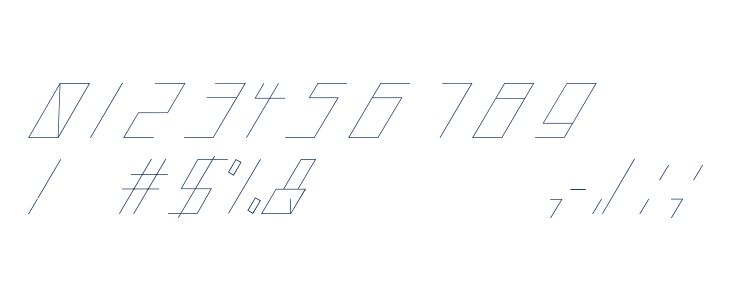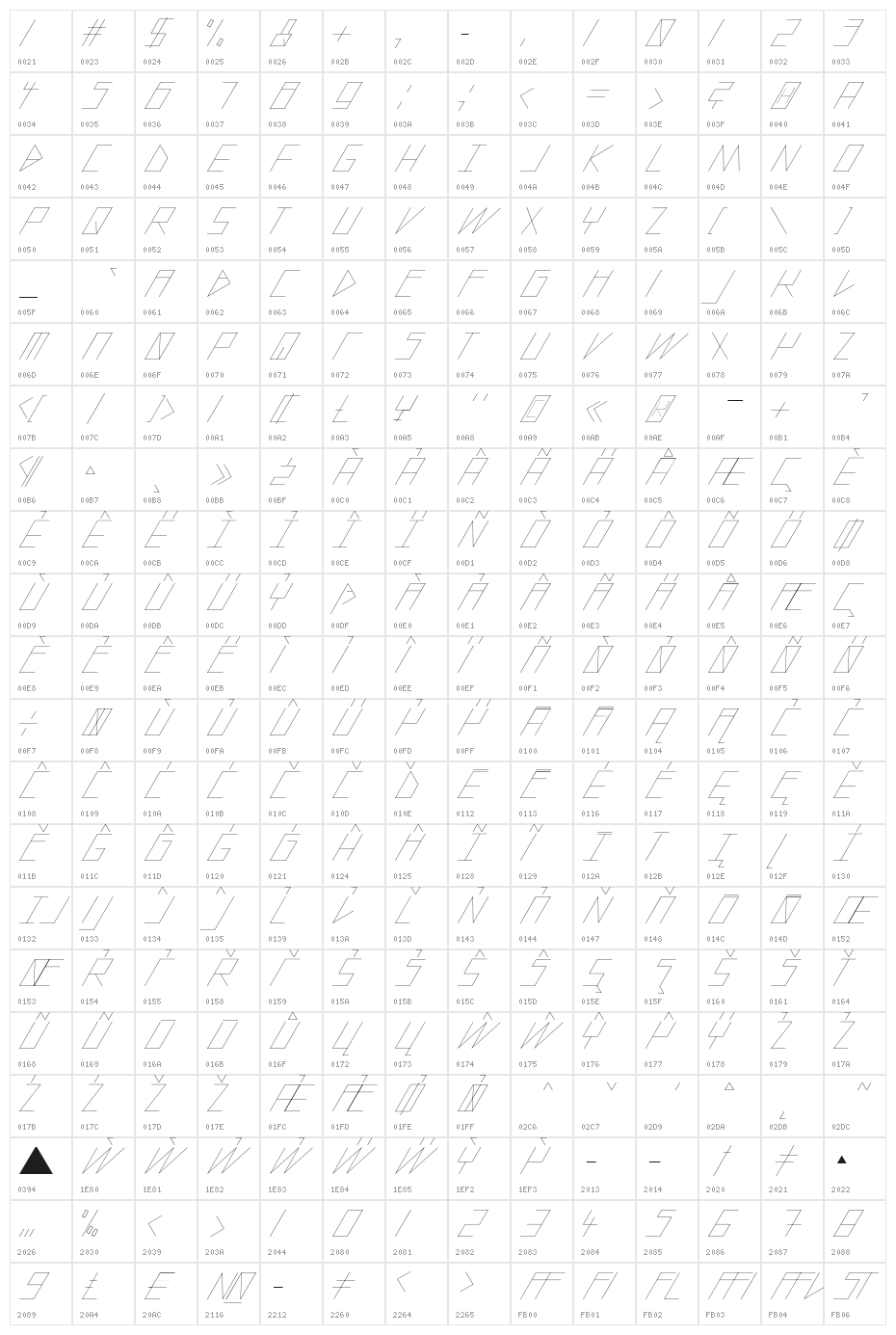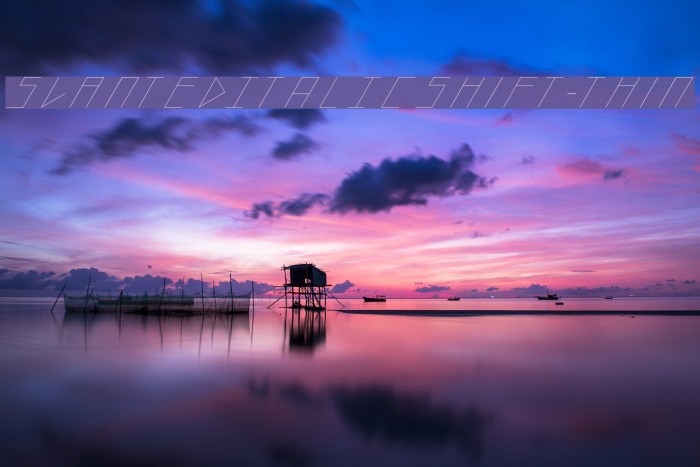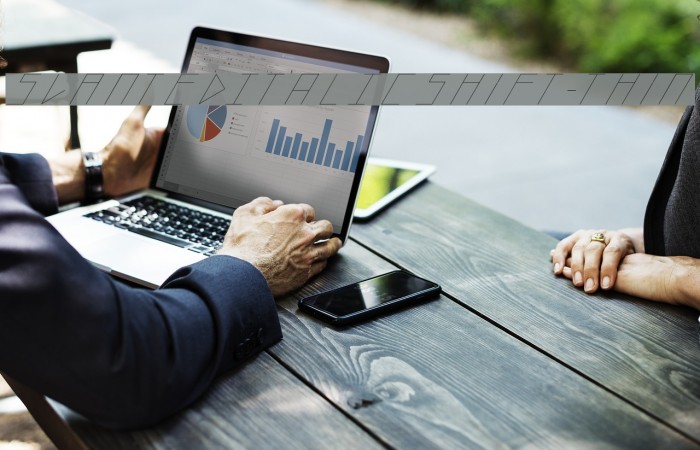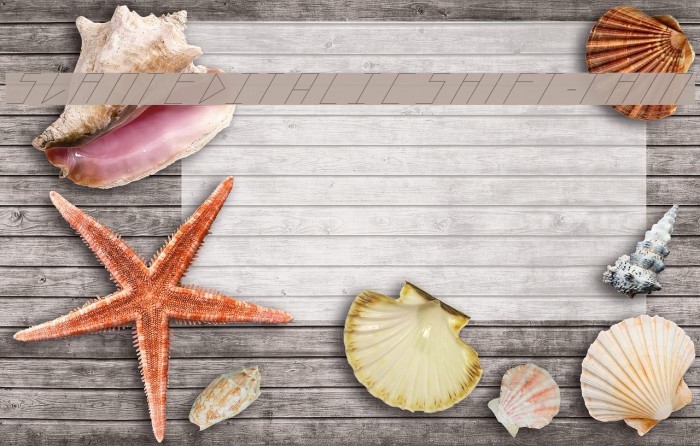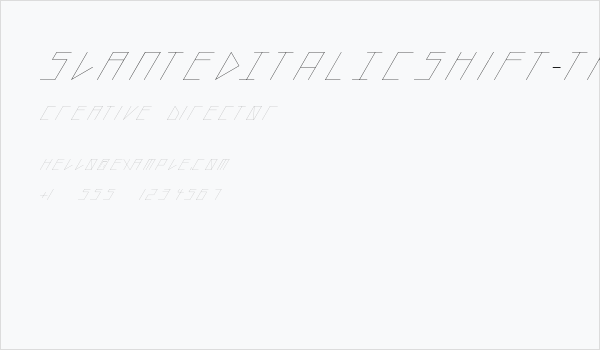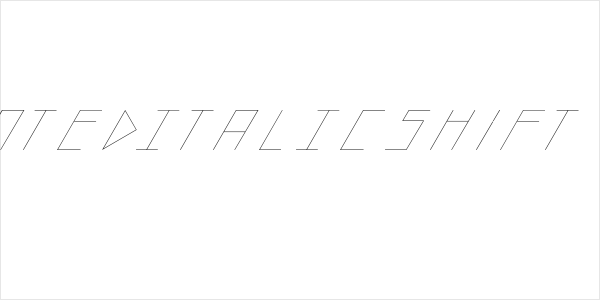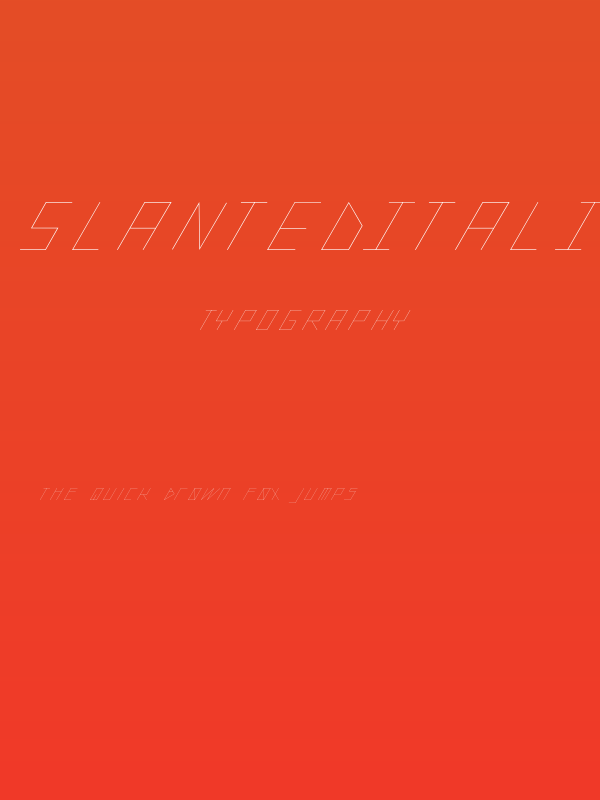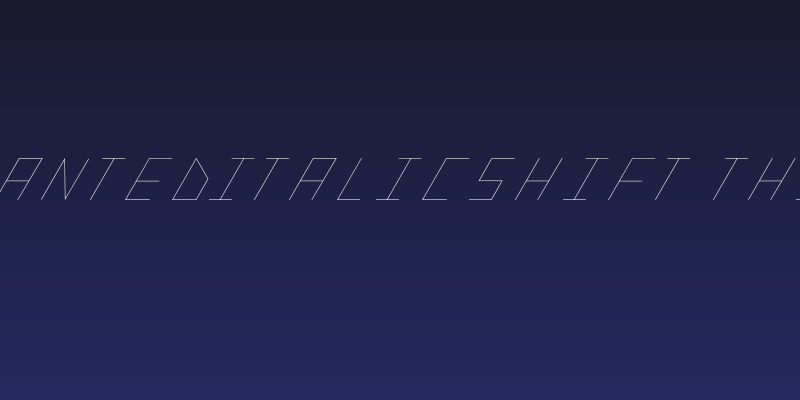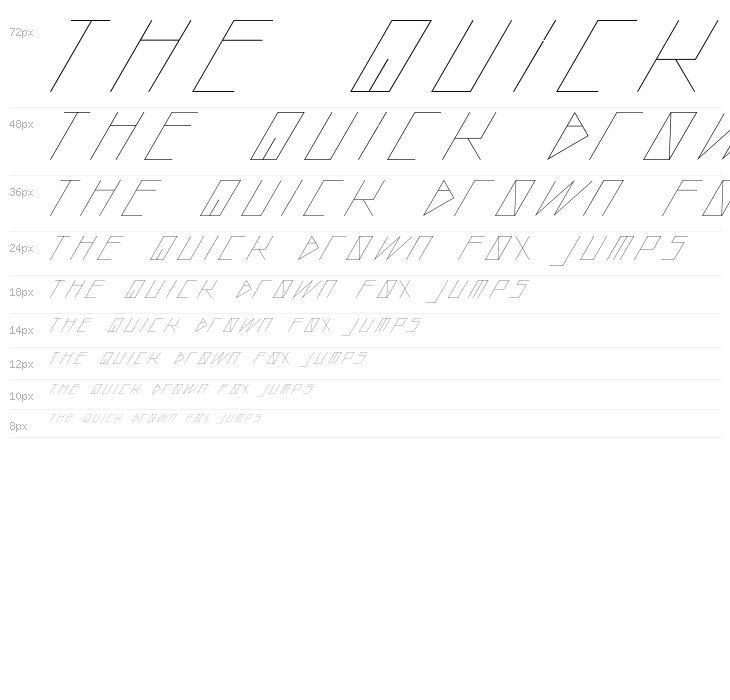
slantedITALICshift-Thin Font
slantedITALICshift-Thin Description
This font features a distinct geometric and angular design, characterized by its thin lines and slanted italic style. Each character is constructed with sharp angles and straight lines, giving it a futuristic and technical appearance. The uppercase and lowercase letters maintain a consistent slant, enhancing the italicized effect. Numbers and special characters follow the same angular design, ensuring uniformity across the font. The thin strokes contribute to a sleek and modern aesthetic, making it suitable for projects that require a contemporary and minimalist touch.
| Overall Style | Futuristic, Technical |
| Use Case | Logos, Headlines, Digital Interfaces |
| Proposed Projects | Ideal for tech branding, modern posters, digital interfaces, and futuristic designs. |